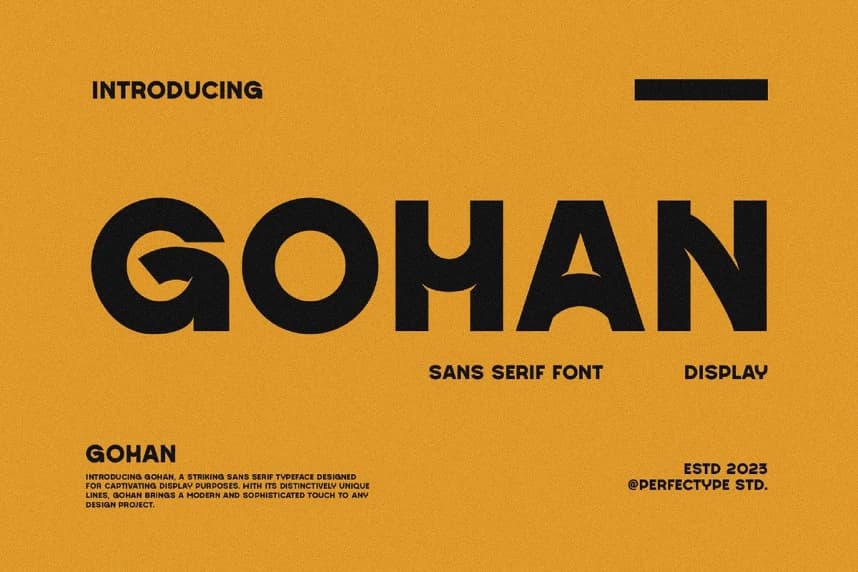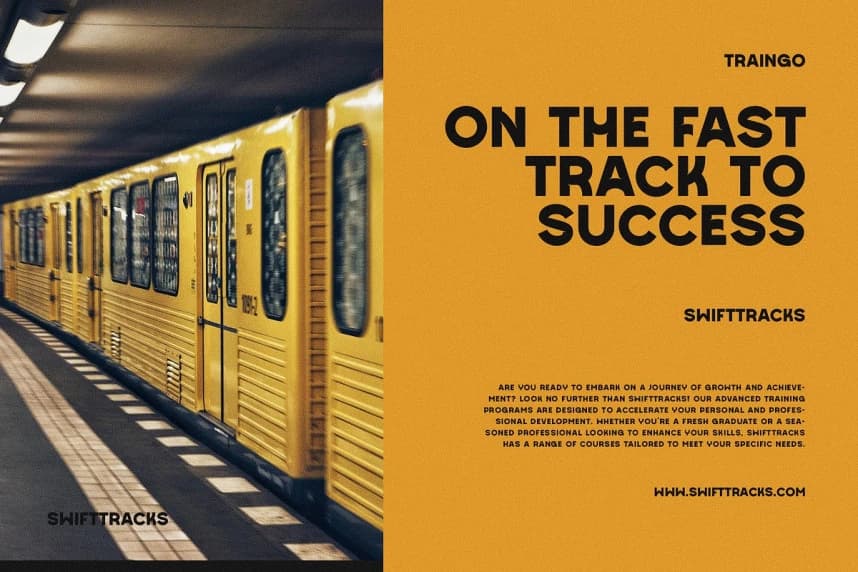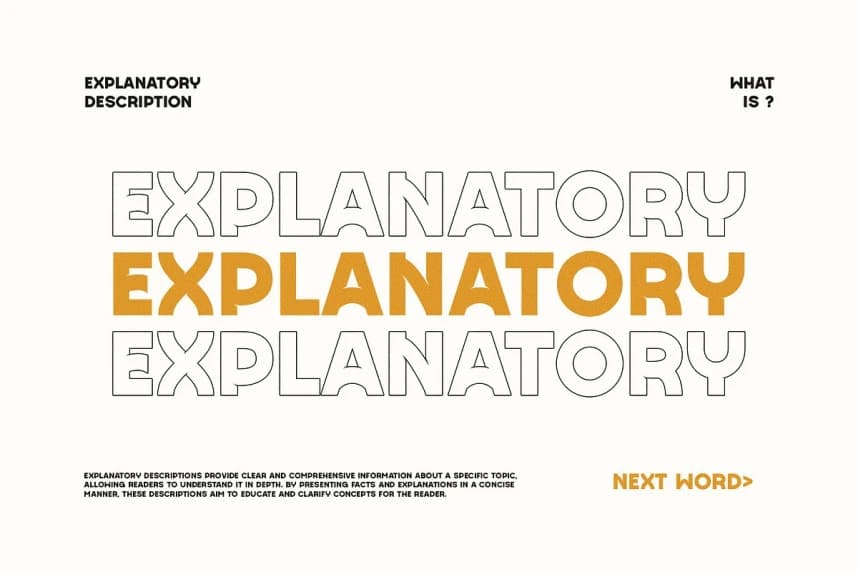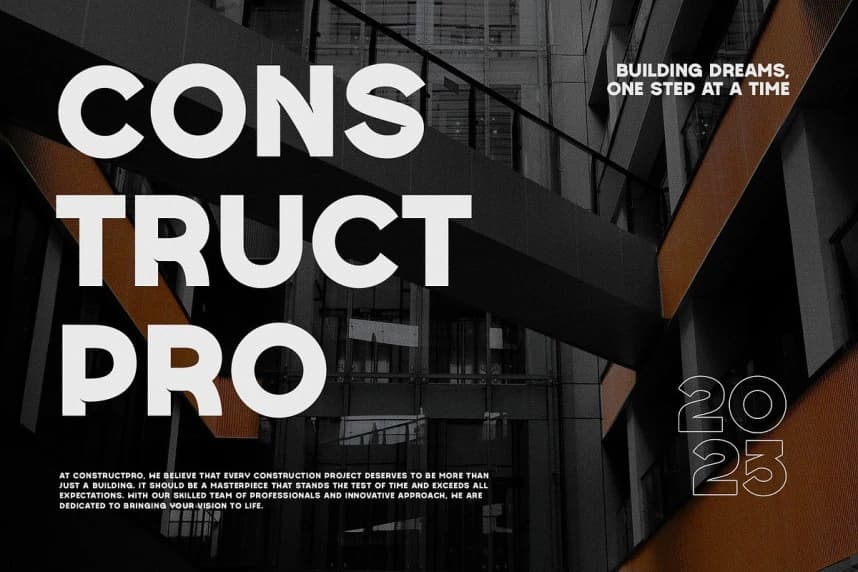
Gohan Font
Gohan Font - This typeface encapsulates a rhythm that is symmetrical and balanced due to a unique mix of different sources of inspiration. Proportions are precisely adjusted with subtle contours and subtle contrasts.